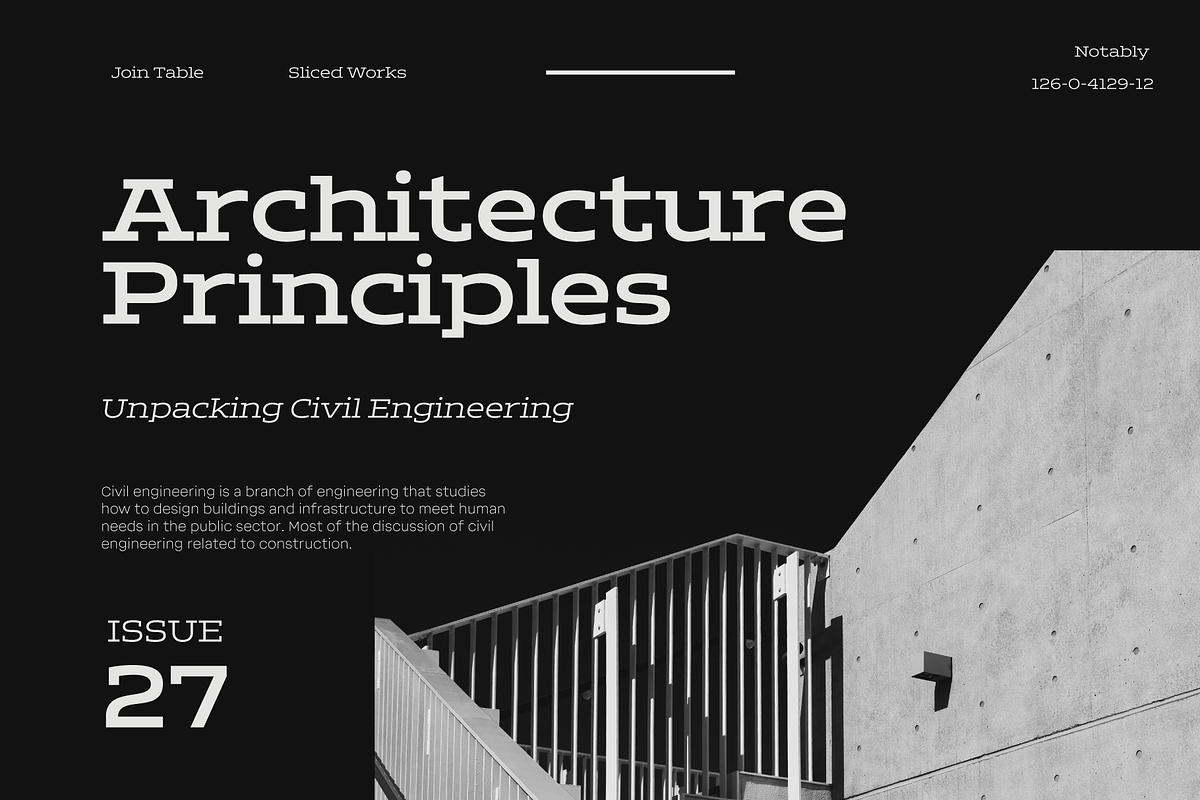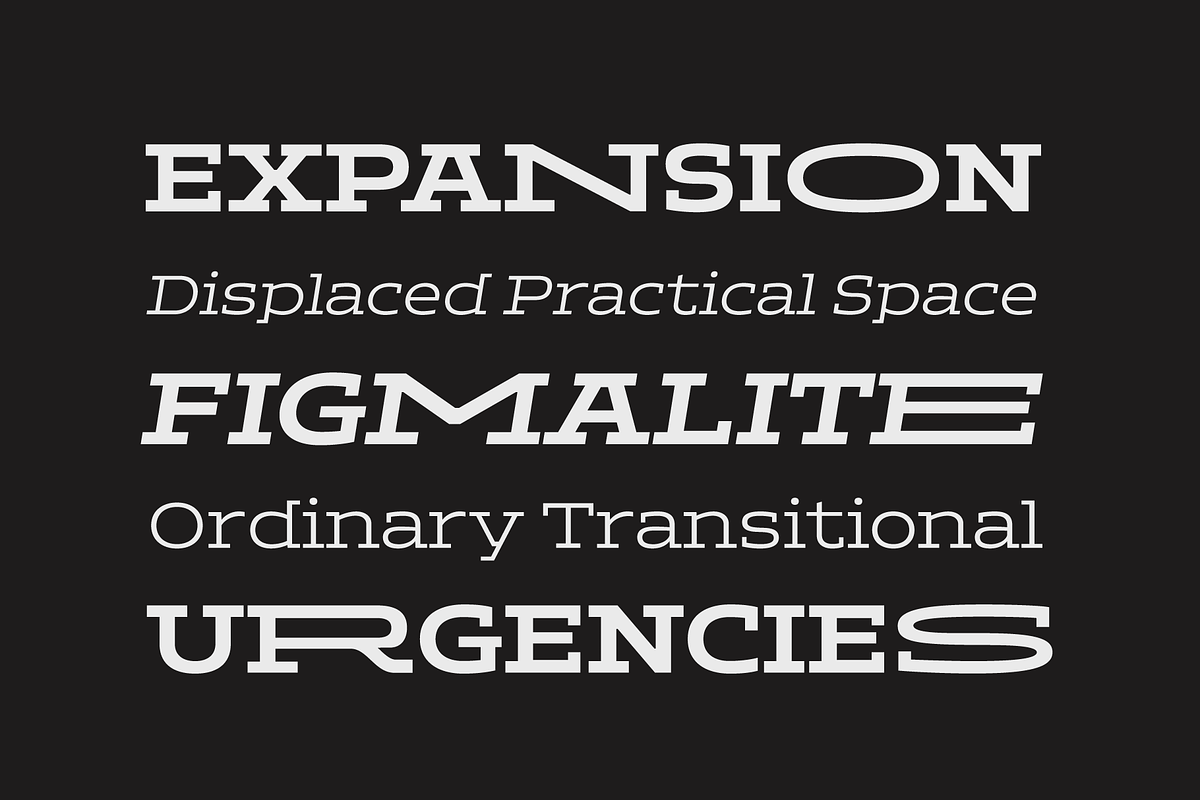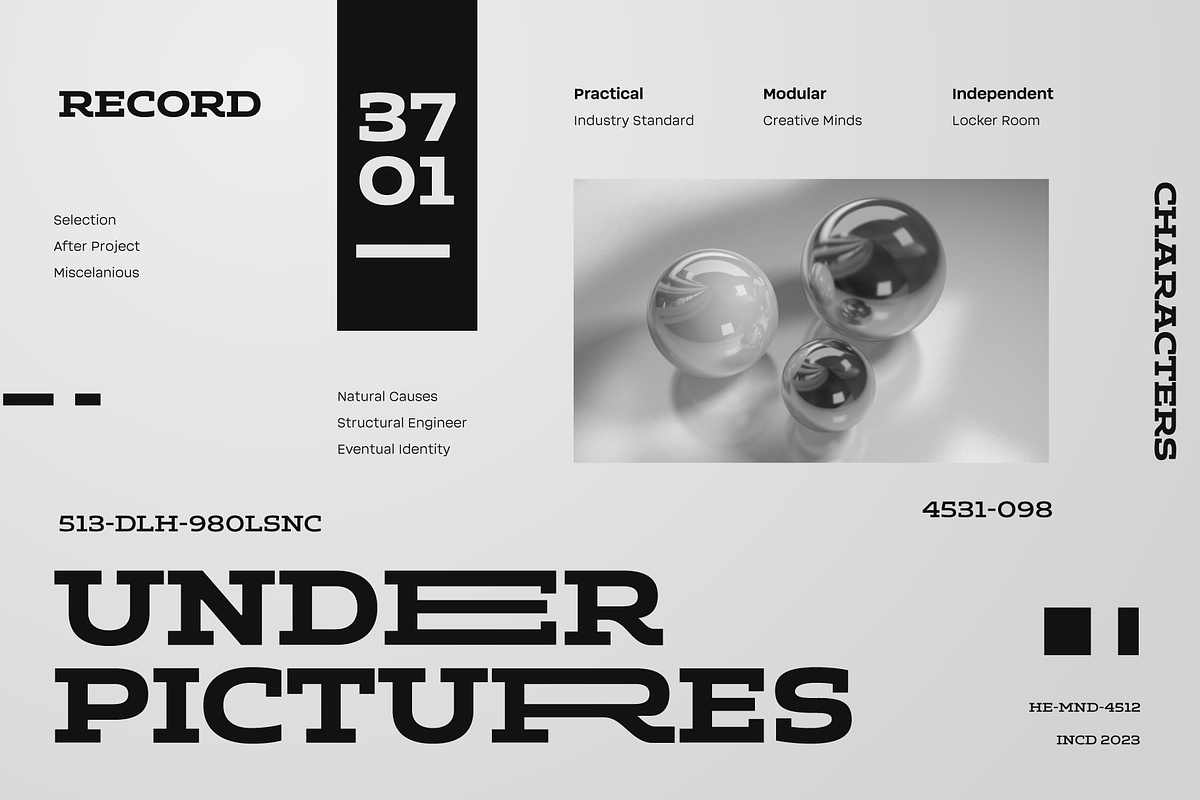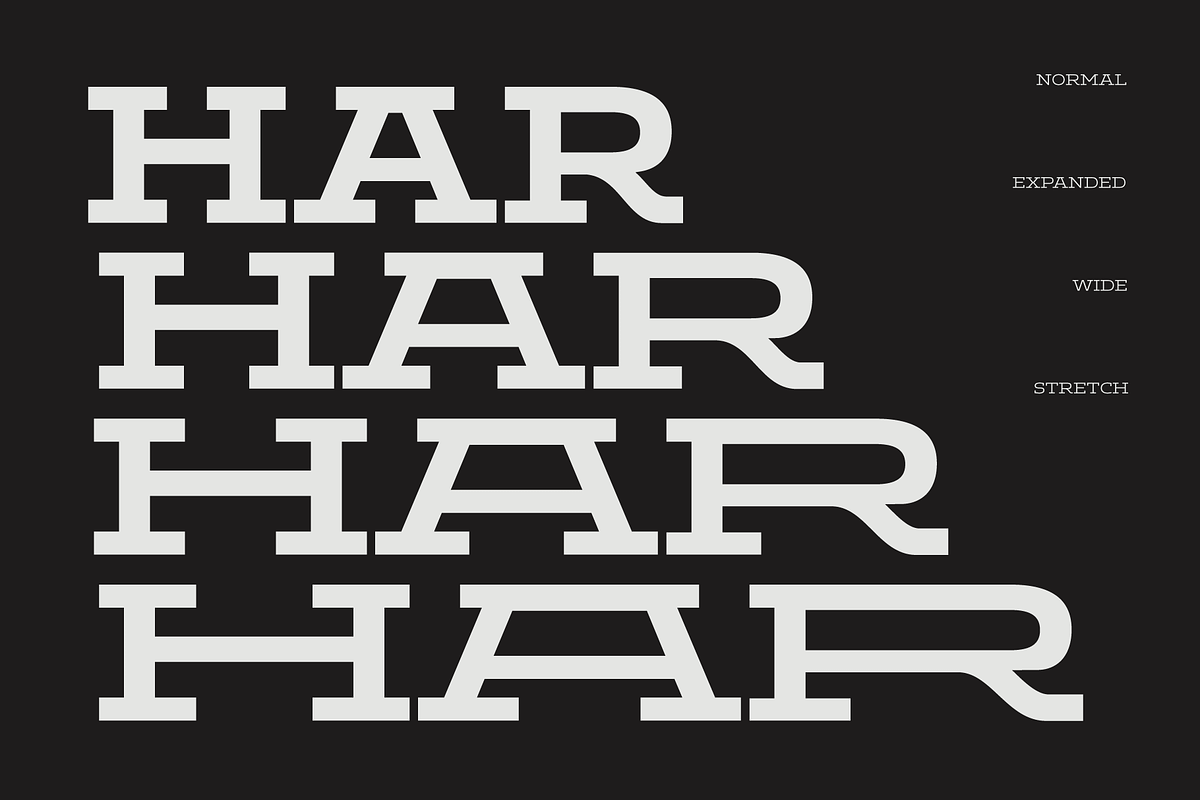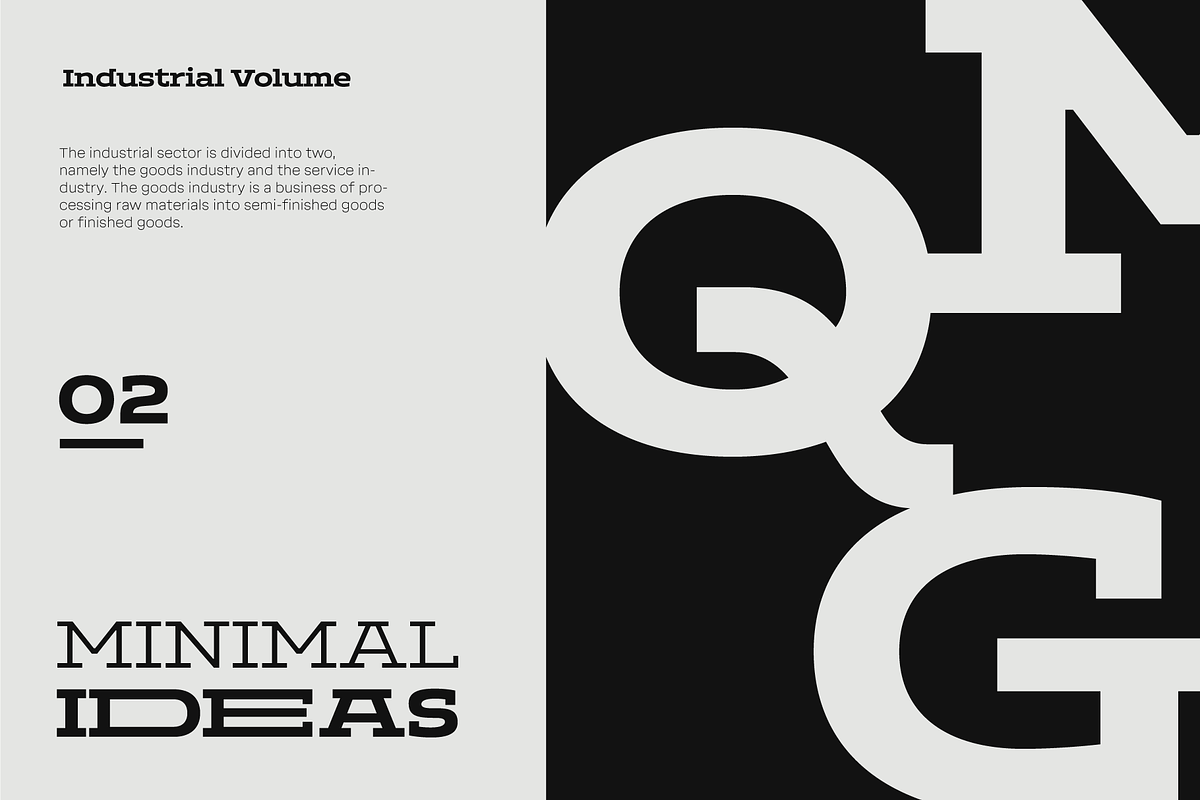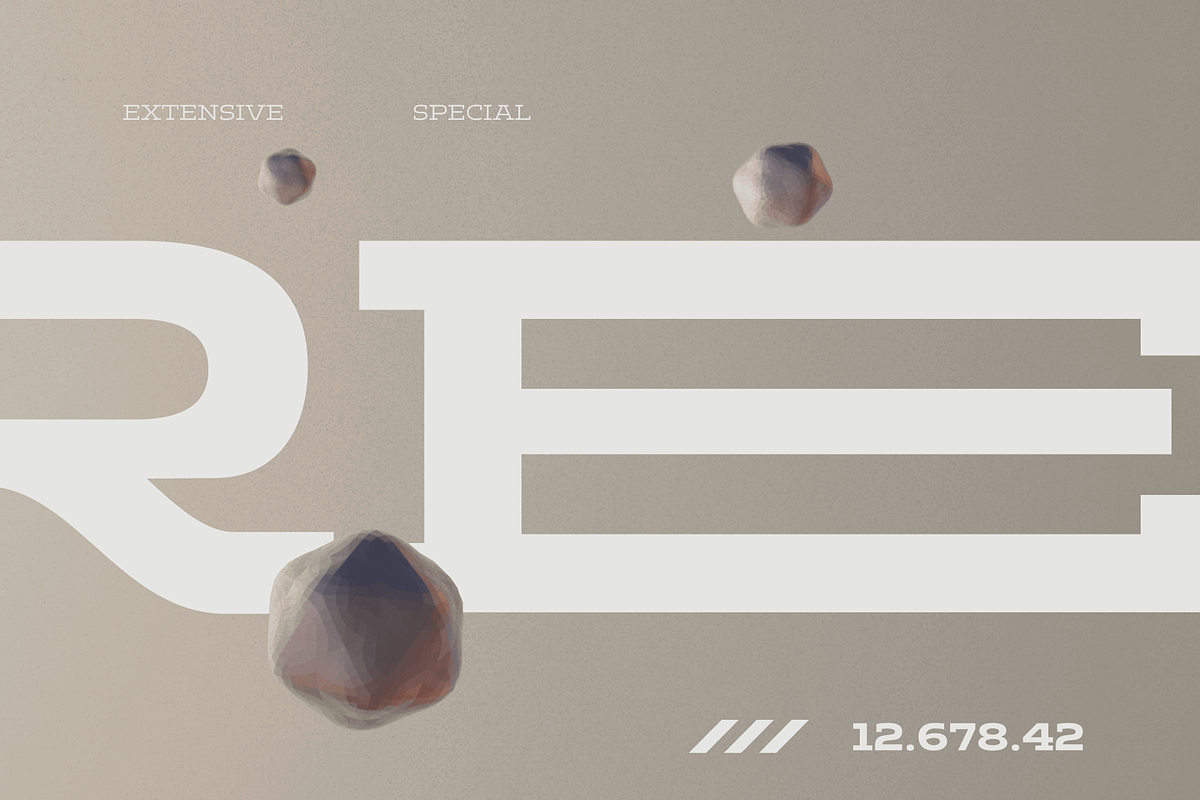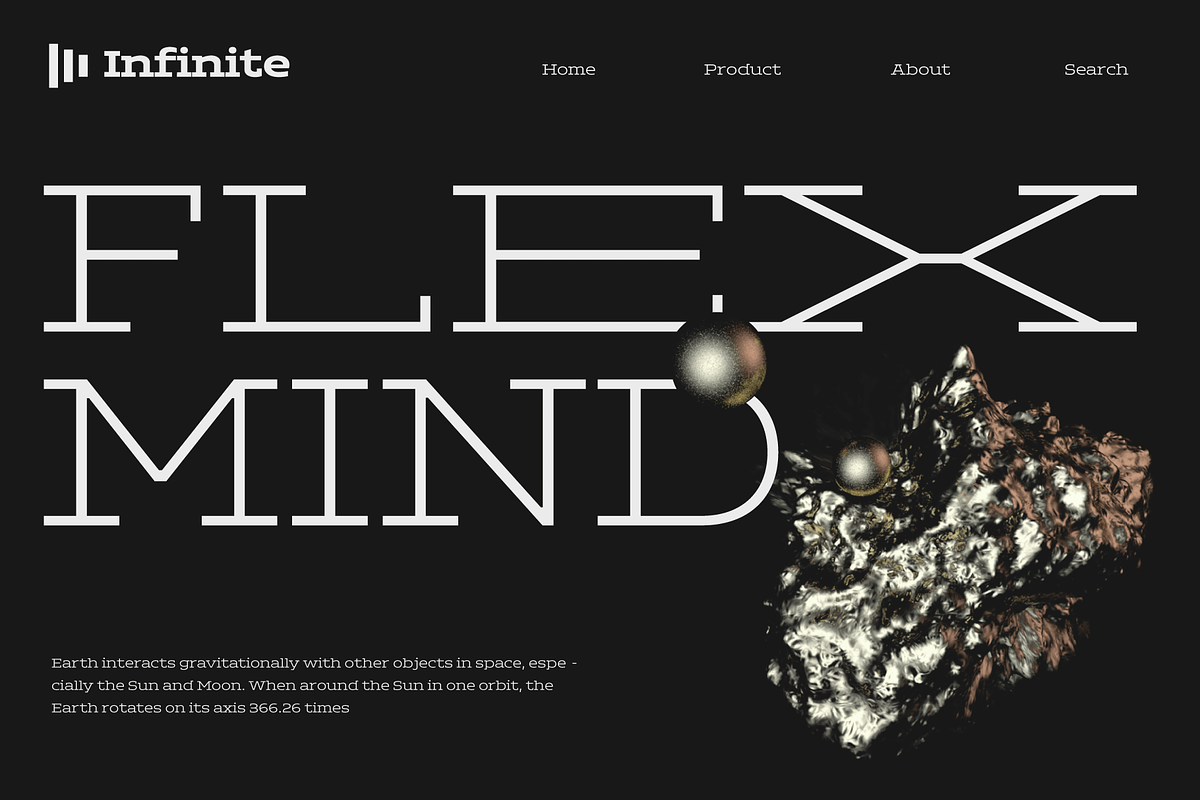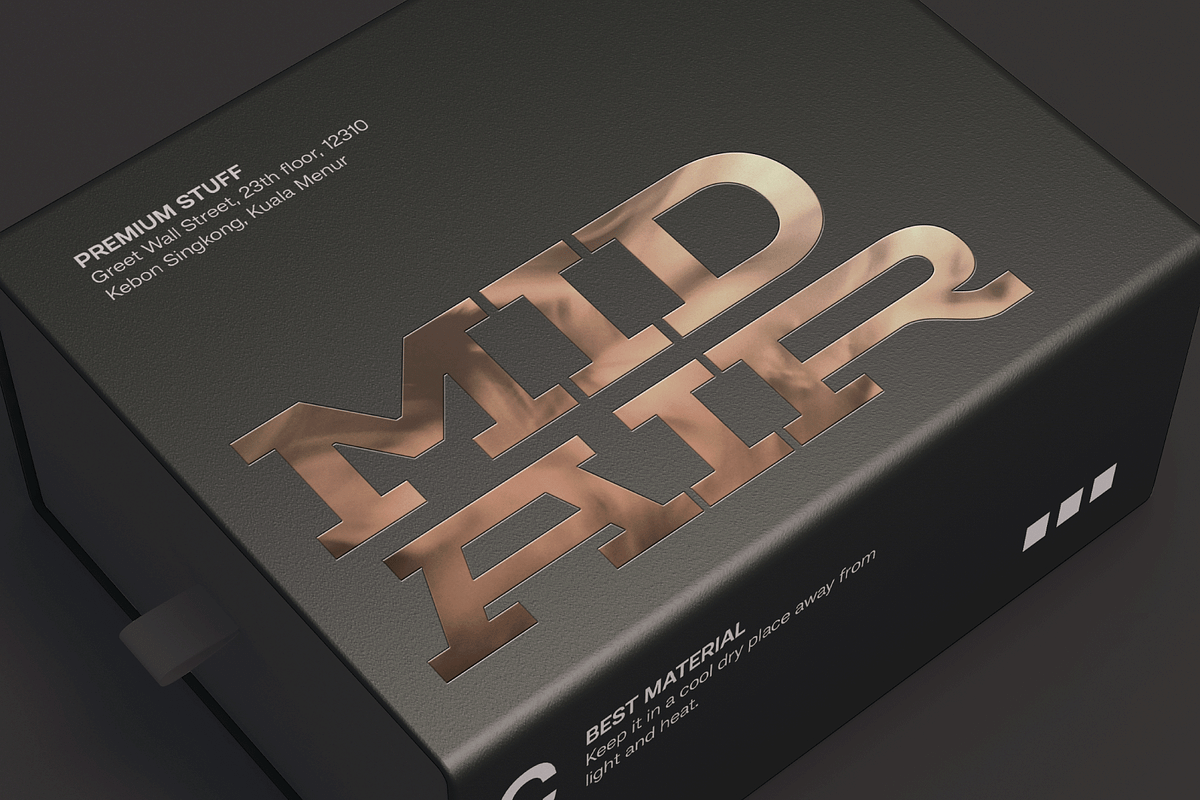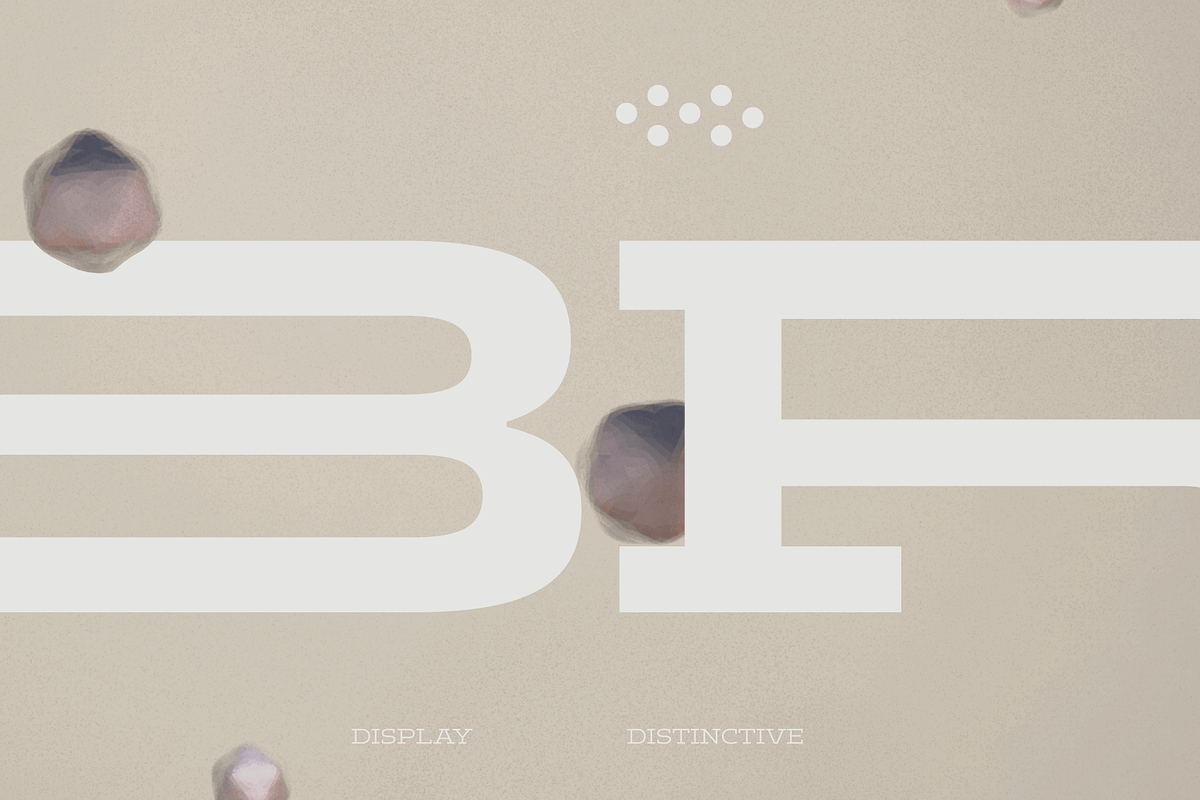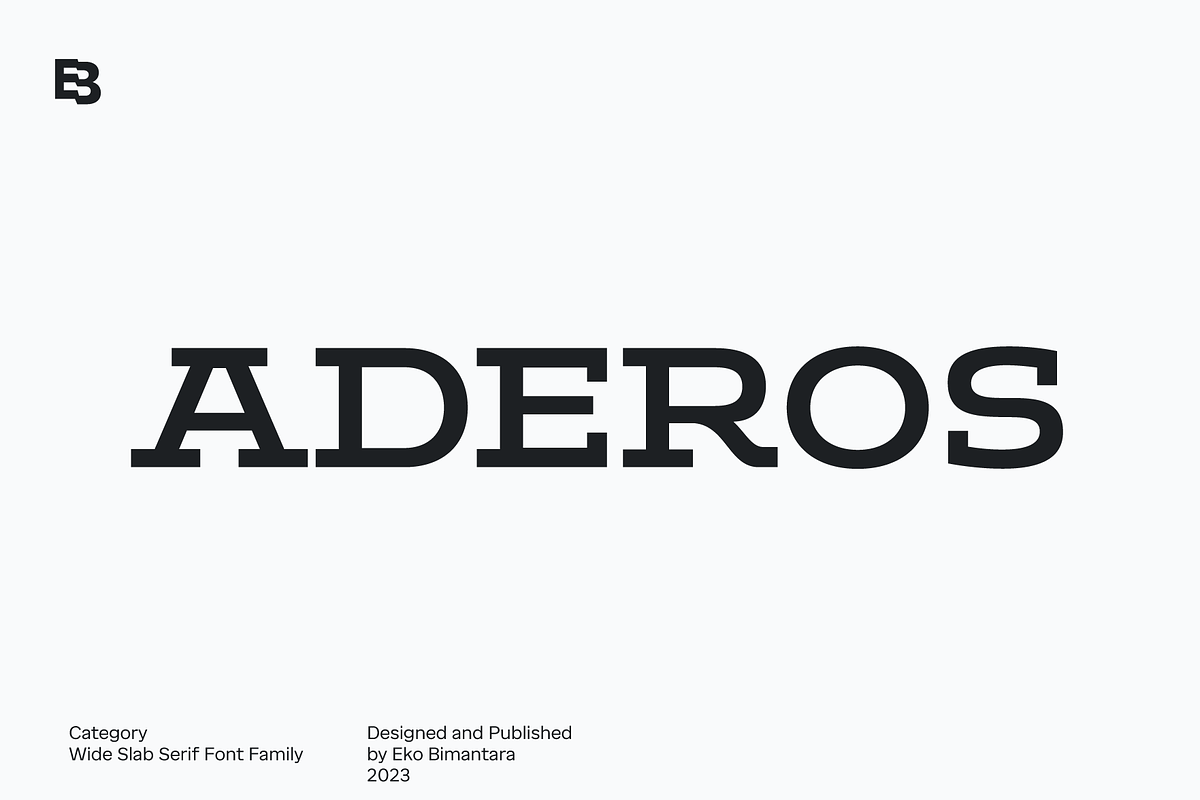
Aderos; Wide Slab Super Family
Aderos is a refined and professional slab serif font family that offers a fresh take on the modern and bold aesthetic of its predecessor, Adero. This font family introduces a range of styles that provide versatility and visual impact. With its four width variations – Normal, Extended, Wide, and Stretch – Aderos delivers an exciting array of extreme wide letterforms that command attention.
Designed with precision and attention to detail, Aderos is particularly well-suited for branding projects, where it can lend a distinctive and authoritative presence. Its strong and bold letterforms make it an excellent choice for titles and headings that demand impact and legibility. The spacious layout of Aderos further enhances its professional appeal, allowing for clear and organized content presentation.
Whether used in print or digital applications, Aderos brings a sense of sophistication and professionalism to a variety of design projects. Its versatility and range of styles make it a valuable asset for designers seeking to create visually compelling and memorable visuals. With Aderos, you can elevate your designs with its refined slab serif style and confidently communicate your message to your audience.